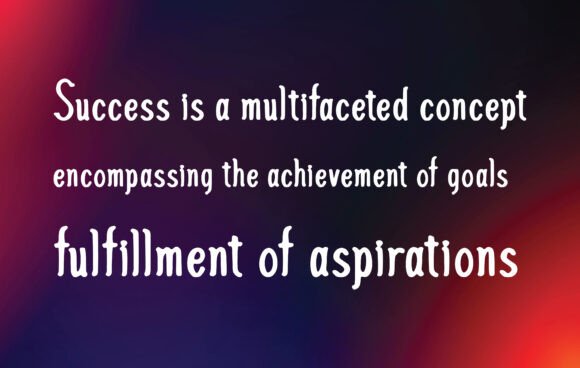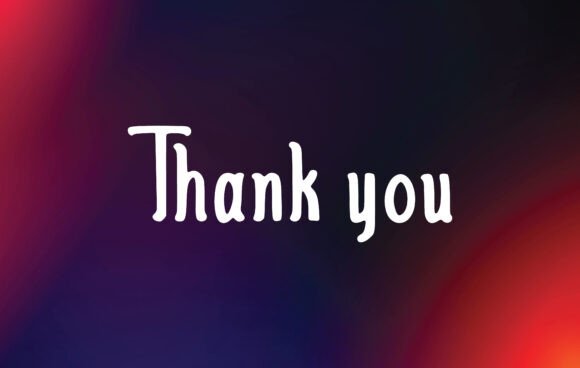
Introduction to Prometheus Font
Prometheus is a lovely and beautiful handwritten font.
Key Features of Prometheus Font
Why Choose Prometheus Font?
Prometheus Font offers exceptional quality and versatility, making it a valuable addition to your design toolkit. Whether you’re creating for personal projects or commercial use, Prometheus Font delivers professional results.